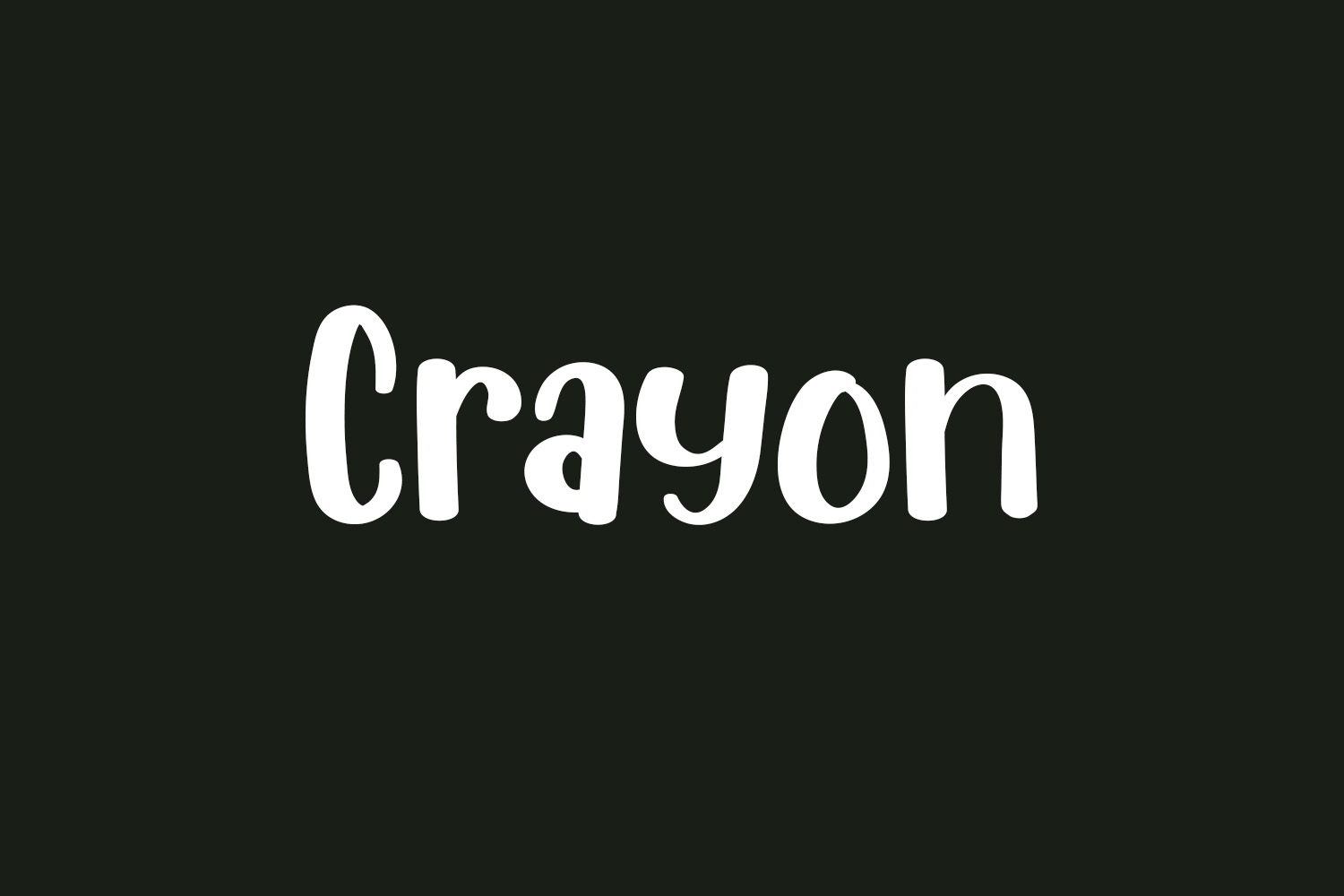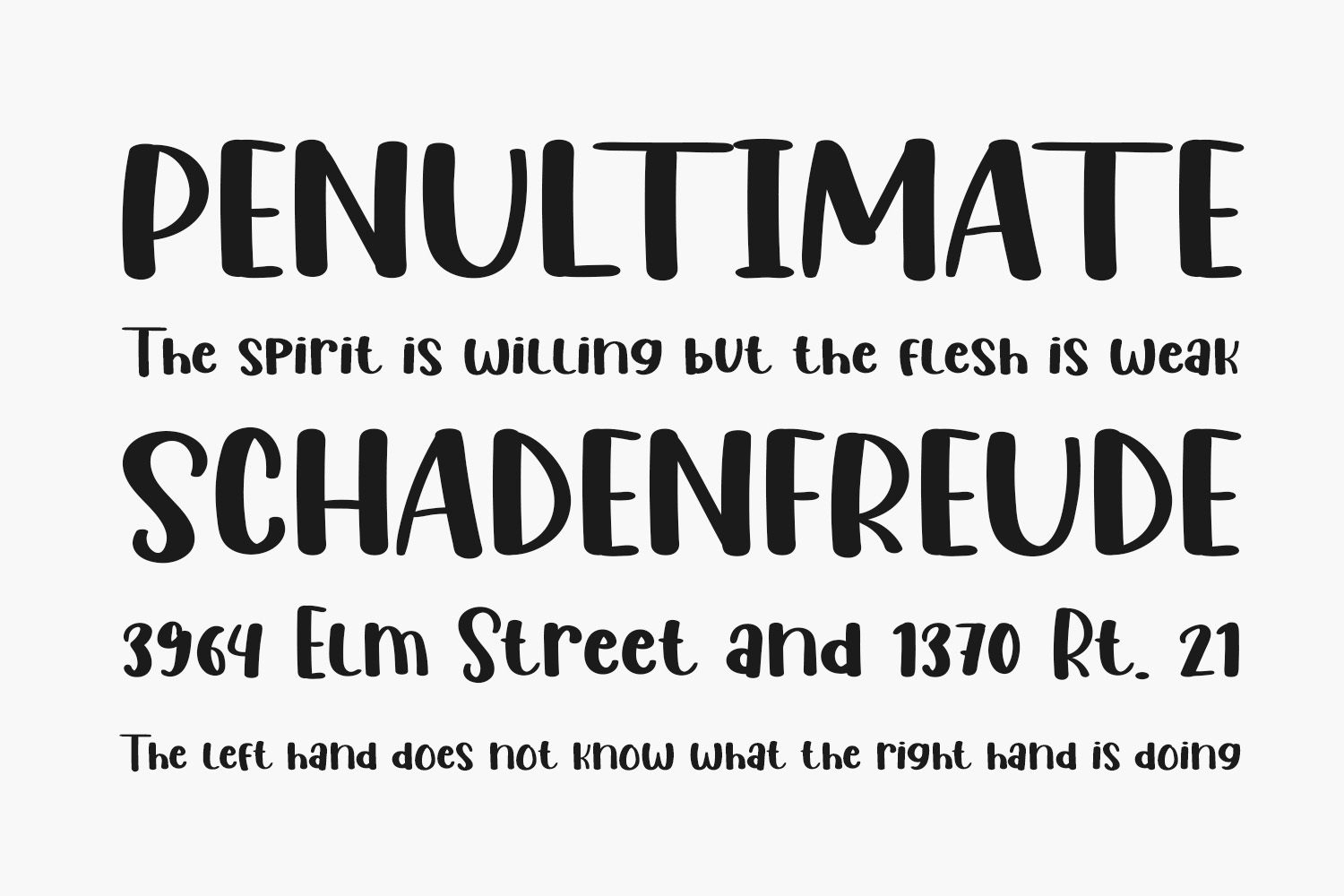
Crayon Free Font is a neat, quirky, and relaxed display font. Whether you use it for cartoon related designs, children games, or just any creation that requires a lovely touch, this font will be an amazing choice. Crayon Free Font was designed by Erik Studio and is free for personal use only. Please purchase the full version for commercial use.